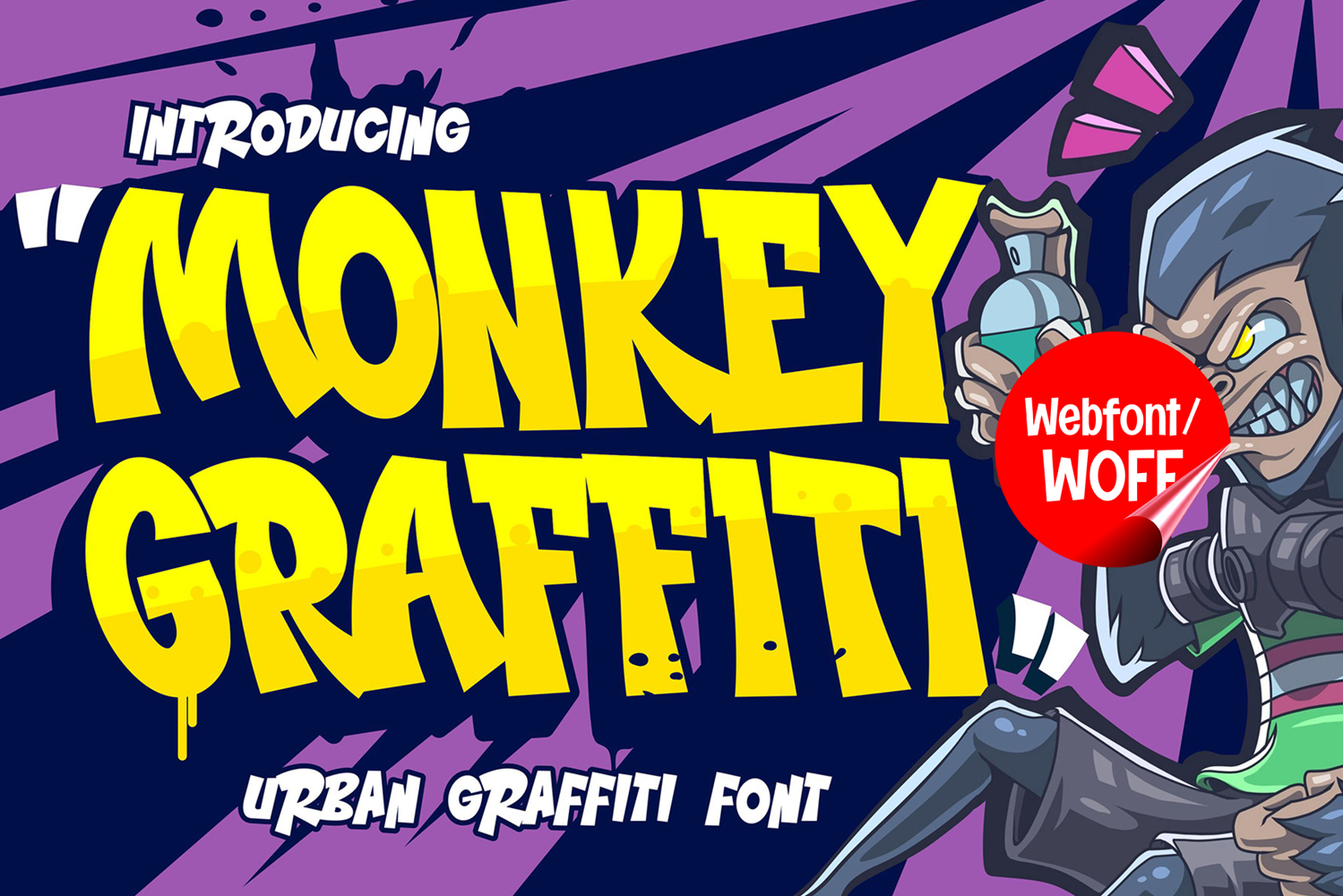
Monkey Graffiti | Awesome Graffiti Webfont for Urban Street
Monkey Graffiti is an awesome graffiti webfont designed to bring bold street-art energy and expressive urban style into modern website design. Inspired by spray-paint murals, freestyle tagging, and underground graffiti culture, this font features dynamic shapes and creative movement that create a powerful and eye-catching visual identity. It is an excellent choice for projects that aim to deliver authentic urban aesthetics with strong visual impact.
Monkey Graffiti includes a complete set of uppercase characters designed with bold graffiti-inspired forms. The letterforms feature chunky curves, energetic flow, and expressive details that create a vibrant and rebellious street-art appearance. These characteristics make it ideal for headlines, banners, hero sections, promotional graphics, and featured content where strong urban visuals are needed.
In addition to letters, the font includes numbers and punctuation, allowing flexible usage across various parts of a website. It works well for streetwear branding, gaming websites, music platforms, hip hop projects, esports graphics, and creative portfolios. Each character maintains a consistent graffiti style, ensuring a cohesive and unified visual identity throughout the design.
With multilingual support, Monkey Graffiti includes a wide range of accented characters, making it suitable for international websites and global audiences. This ensures content remains clear and visually consistent across different languages while preserving the expressive and urban graffiti aesthetic.
The awesome graffiti style of Monkey Graffiti makes it especially suitable for urban-themed websites, entertainment campaigns, youth-oriented branding, and creative digital projects. Its bold structure and energetic appearance create a powerful street-art atmosphere that helps websites stand out in visually competitive environments. The graffiti-inspired forms add movement, excitement, and authentic urban character.
Despite its decorative and highly expressive appearance, Monkey Graffiti is designed with readability in mind. The spacing and proportions are carefully balanced to ensure clarity, particularly in display sizes. This allows designers to use the font effectively for impactful headings and short content without sacrificing usability.
Monkey Graffiti is a webfont that combines graffiti aesthetics with modern digital performance. Its bold forms, energetic movement, and urban character create a distinctive typographic presence that enhances website design. For projects that require a strong, creative, and visually engaging graffiti font, Monkey Graffiti offers a versatile and powerful solution.
Monkey Graffiti
Monkey Graffiti Webfont